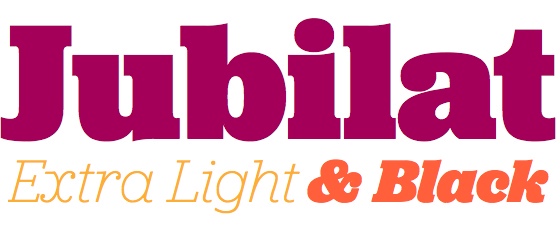
Jubilat Font
Jubilat Font is perfect for celebratory event invitations, festive marketing campaigns, holiday greeting cards, party planning materials, entertainment industry branding, and joyful social media graphics. Its exuberant character makes it ideal for birthday celebrations, wedding announcements, festival posters, children's book covers, toy packaging, and any project requiring infectious enthusiasm and cheerful personality.
This font is exciting because it radiates pure happiness and celebration through every carefully crafted letterform, instantly transforming ordinary text into vibrant expressions of joy and festivity. The playful yet professional design captures the essence of memorable moments while maintaining excellent readability, making it the perfect choice for brands and projects that want to spread positivity and create lasting emotional connections with audiences.
The Jubilat Font family typically includes Regular, Bold, Light, and decorative variations, often accompanied by celebratory ornaments, party-themed graphics, and festive flourishes. This comprehensive collection provides designers with versatile tools for creating cohesive brand systems that maintain joyful energy while offering flexibility for various celebratory applications and seasonal marketing campaigns.
Whether you're designing promotional materials for entertainment venues, creating packaging for gift products, or developing brand identity for event planning companies, Jubilat Font Free Download delivers the infectious enthusiasm and celebratory spirit that makes every project memorable. Its versatile nature works beautifully across digital platforms and print materials, ensuring consistent joy and excitement in birthday invitations, holiday campaigns, and festive branding that connects with audiences seeking happiness and celebration.